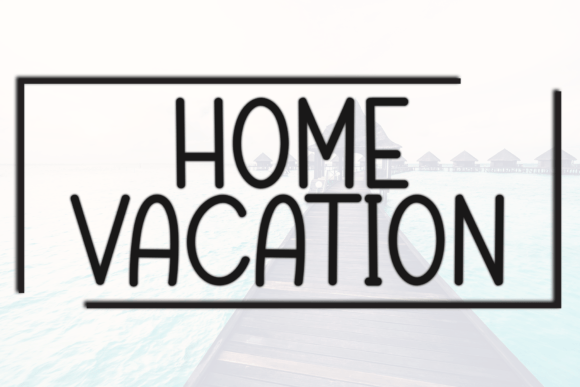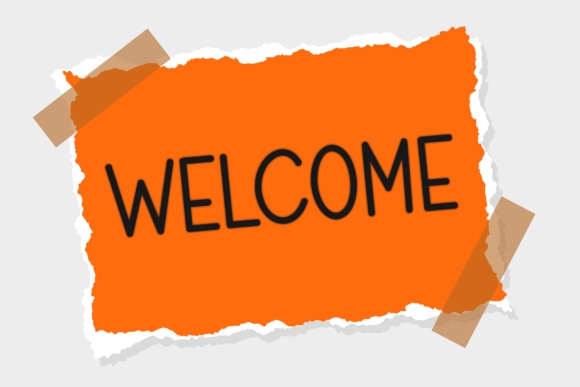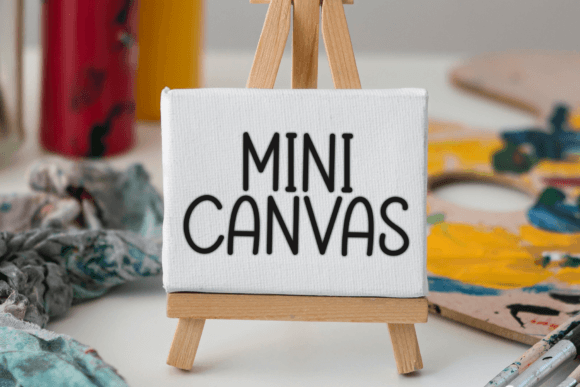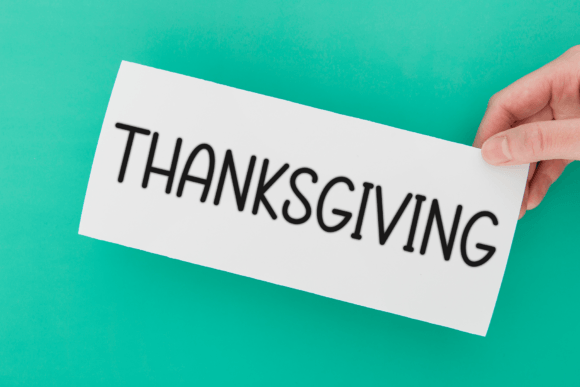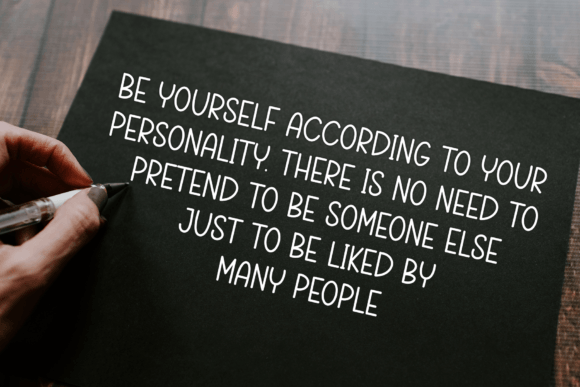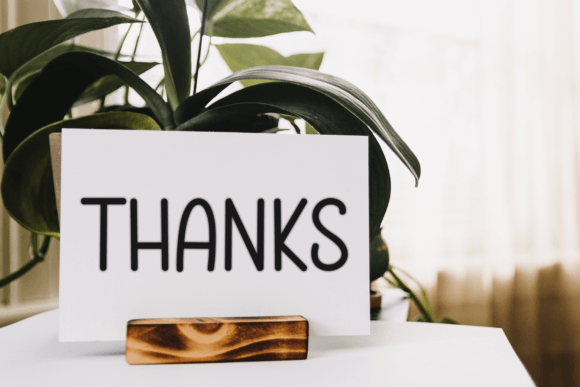
The Perfect Font for Your Dream Getaway
Have you ever been browsing through travel brochures, and suddenly, a beautiful handwritten font catches your eye? The words seem to dance on the page, drawing you in and making you feel like you’re already there. This magical moment is exactly what the Home Vacation Font is all about.
Home Vacation is a charming handwritten font that brings a touch of warmth and personality to any design. Its natural and unique style makes it incredibly versatile, allowing you to use it for a wide range of projects, from travel and lifestyle brands to wedding invitations and social media graphics. Whether you’re a seasoned designer or just starting out, the Home Vacation Font is a valuable addition to your toolkit.
Home Vacation Font Key Features
- Font Family: Home Vacation Font is a modern sans-serif font designed for use in various applications, including digital and print media.
- Character Set: The font includes a comprehensive character set, including uppercase and lowercase letters, numbers, punctuation marks, and various symbols.
- Unique Characteristics: Home Vacation Font features a clean and minimalist design, with subtle rounded edges and a balanced x-height, making it suitable for body text and headlines alike.
- Size: The font comes in multiple weight ranges, including Light, Regular, Medium, Bold, and Black, allowing users to select the perfect weight to suit their design needs.
Home Vacation Font Review
I recently had the chance to work with the Home Vacation font, and I must say it’s a unique addition to any design project. ✨ One of the things that stands out is its versatility – it’s suitable for both modern and traditional designs. The font’s playful and approachable feel makes it perfect for branding and marketing materials.
- Easy to read and understand, even at small font sizes
- Works well in both digital and print formats
- Can be used for a wide range of applications, from logos to packaging
However, I did encounter some limitations while working with the font. ⚠️ The Home Vacation font can look a bit cluttered when used in large blocks of text, and it may not be the best choice for formal or professional designs. Additionally, some characters may not be as polished as others, which can be a minor issue.
Overall, I would say that the Home Vacation font is a solid addition to any design library. While it may have its limitations, its versatility and unique feel make it a great choice for many projects. With a bit of creative direction, this font can really shine.
For optimal results, use Home Vacation Font in conjunction with other design elements that evoke a sense of relaxation and vacation.
Experiment with different font sizes, colors, and styles to create a unique and eye-catching design.
Home Vacation Font is ideal for designing:
Travel brochures and advertisements
Hotel and resort websites
Vacation rental listings
Travel-related social media posts
Alternatives to Home Vacation Font
Great Vibes is a beautiful, handwritten font ideal for creating a warm and inviting atmosphere. It’s perfect for designing social media posts, event invitations, and travel brochures. Great Vibes is more elegant and sophisticated compared to Home Vacation Font, which is more playful and casual.
Crimson Text is a serif font that’s great for creating a sense of luxury and sophistication. It’s suitable for designing high-end travel websites, magazines, and brochures. Compared to Home Vacation Font, Crimson Text is more formal and elegant, making it ideal for targeting a more mature audience.
Lato is a modern sans-serif font that’s perfect for creating a clean and minimalist design. It’s suitable for designing travel websites, blogs, and social media posts. Lato is more versatile and modern compared to Home Vacation Font, which is more vintage and eclectic.